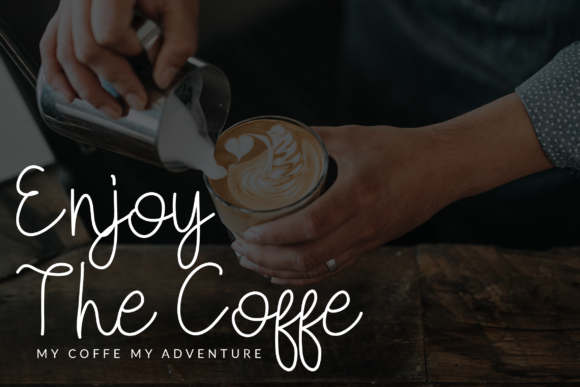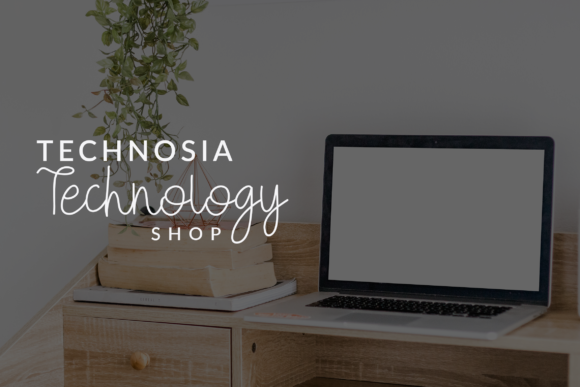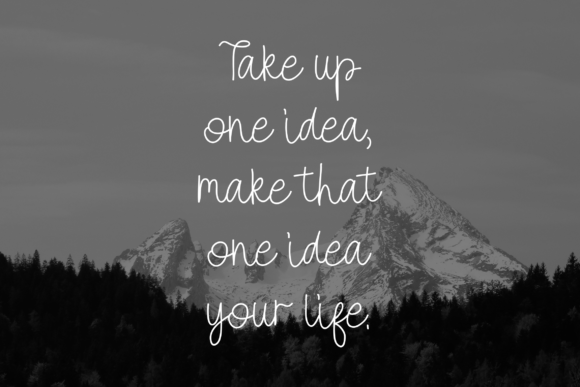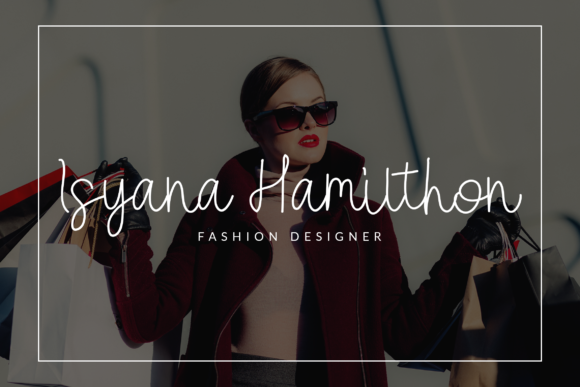
Bootterfly Font
About Bootterfly Font
Bootterfly is a gorgeous script that will turn any design project into a standout. Fall in love with its modern approach to lettering!